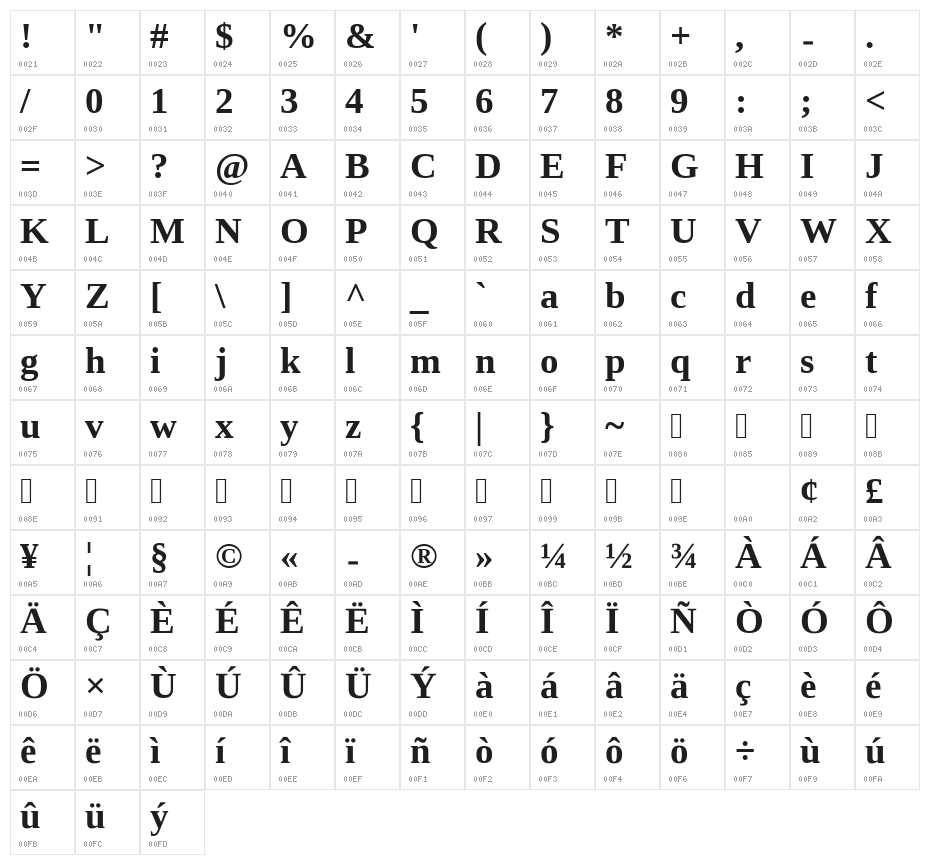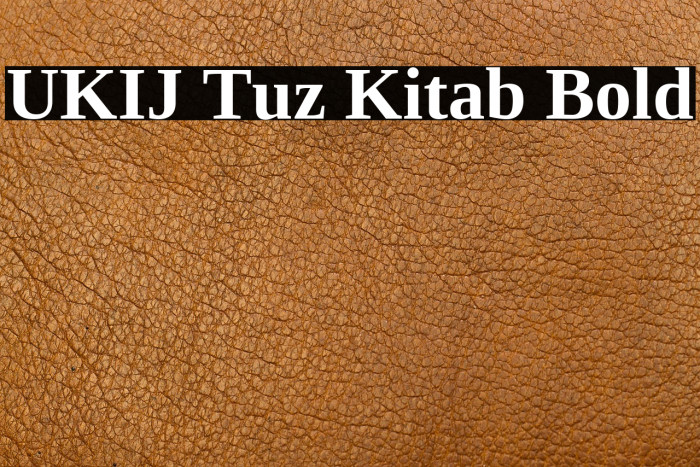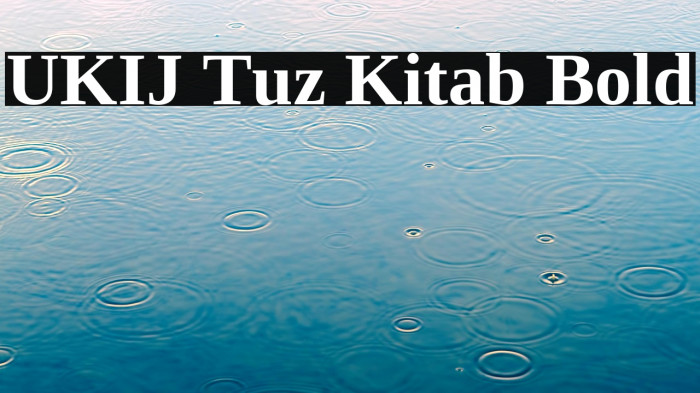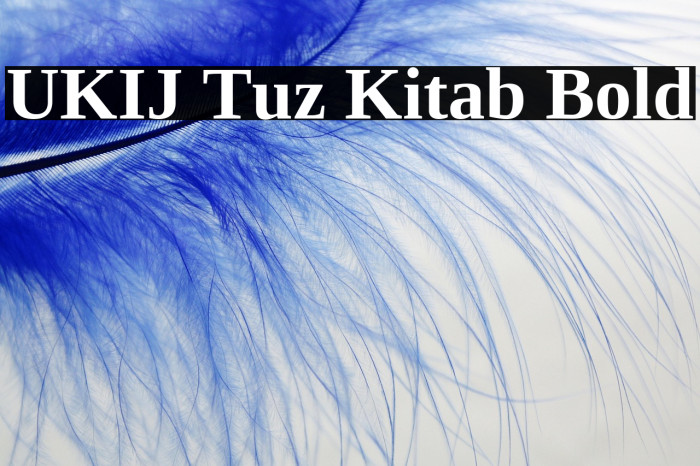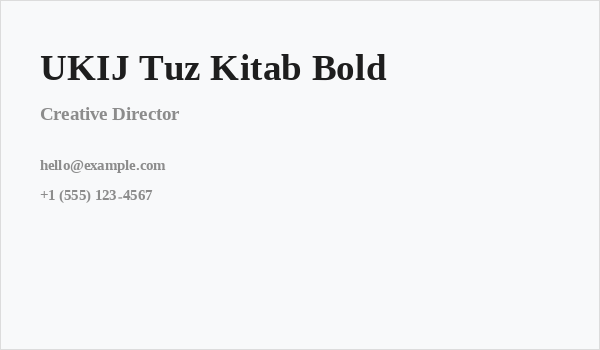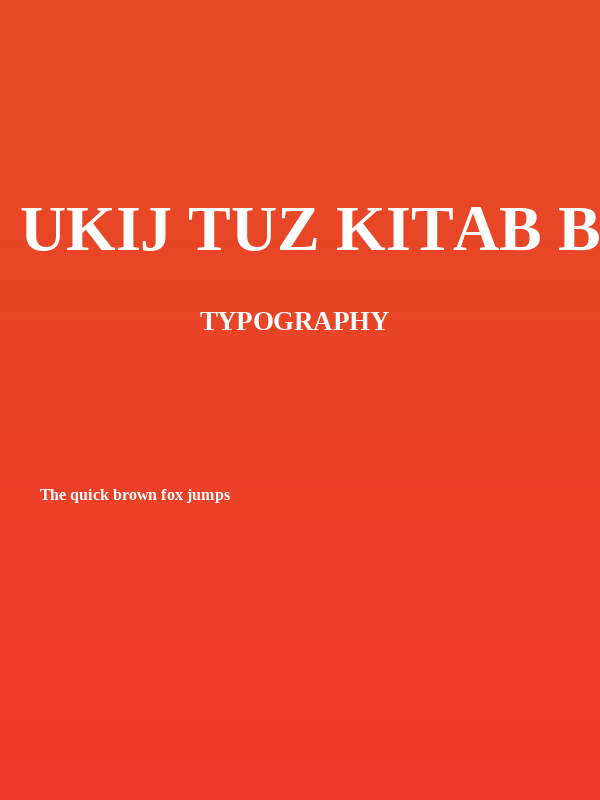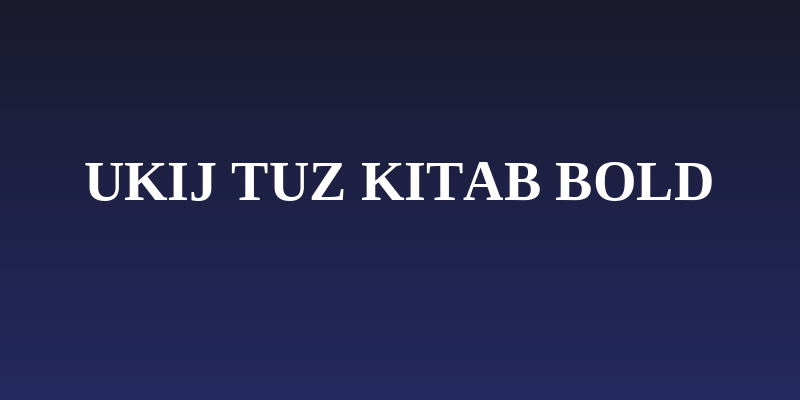
UKIJ Tuz Kitab Bold Font
UKIJ Tuz Kitab Bold Description
This font exhibits a bold and authoritative presence, characterized by its strong serif features and high contrast between thick and thin strokes. The uppercase letters are robust and commanding, while the lowercase letters maintain a consistent weight, providing a balanced and harmonious appearance. The numerals are clear and distinct, ensuring readability in various contexts. Special characters are well-defined, adding versatility to the font's application. The overall style is classic yet modern, making it suitable for a wide range of design projects.